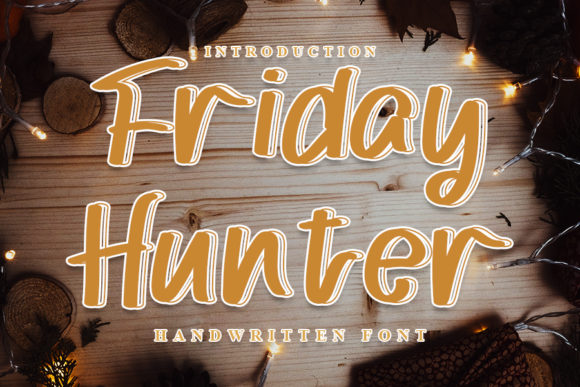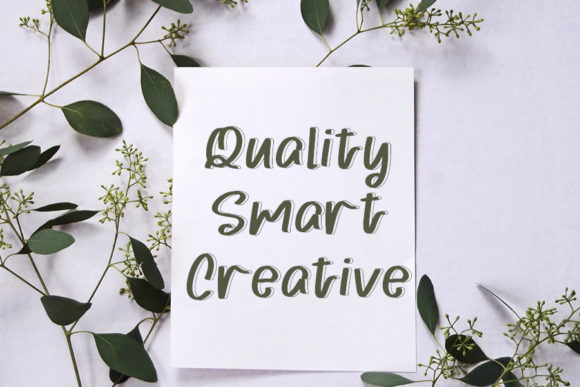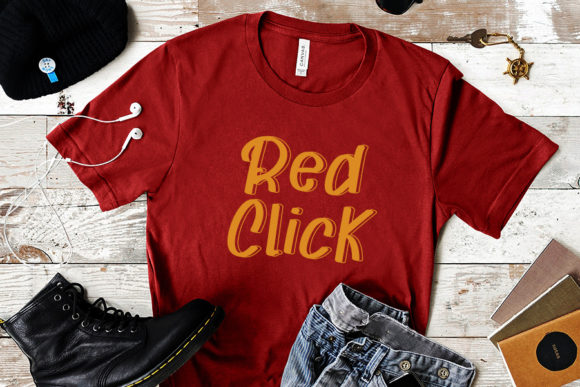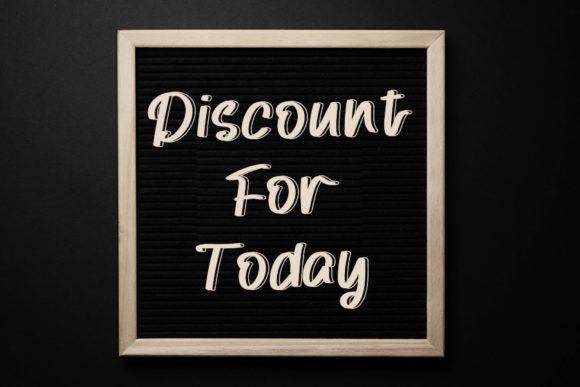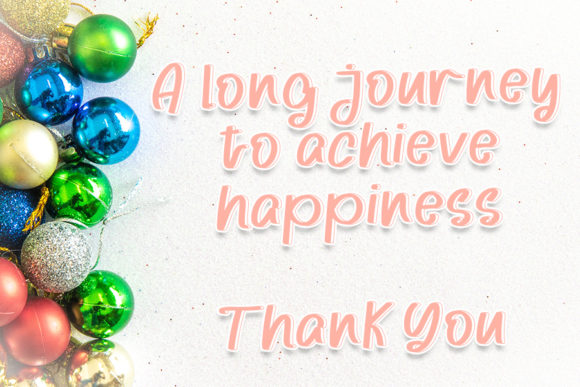
Friday Hunter Font
Friday Hunter is a relaxed and cursive handwritten font. This neat font will look trendy on a variety of design ideas. Add it confidently to your projects, and you won’t be disappointed.